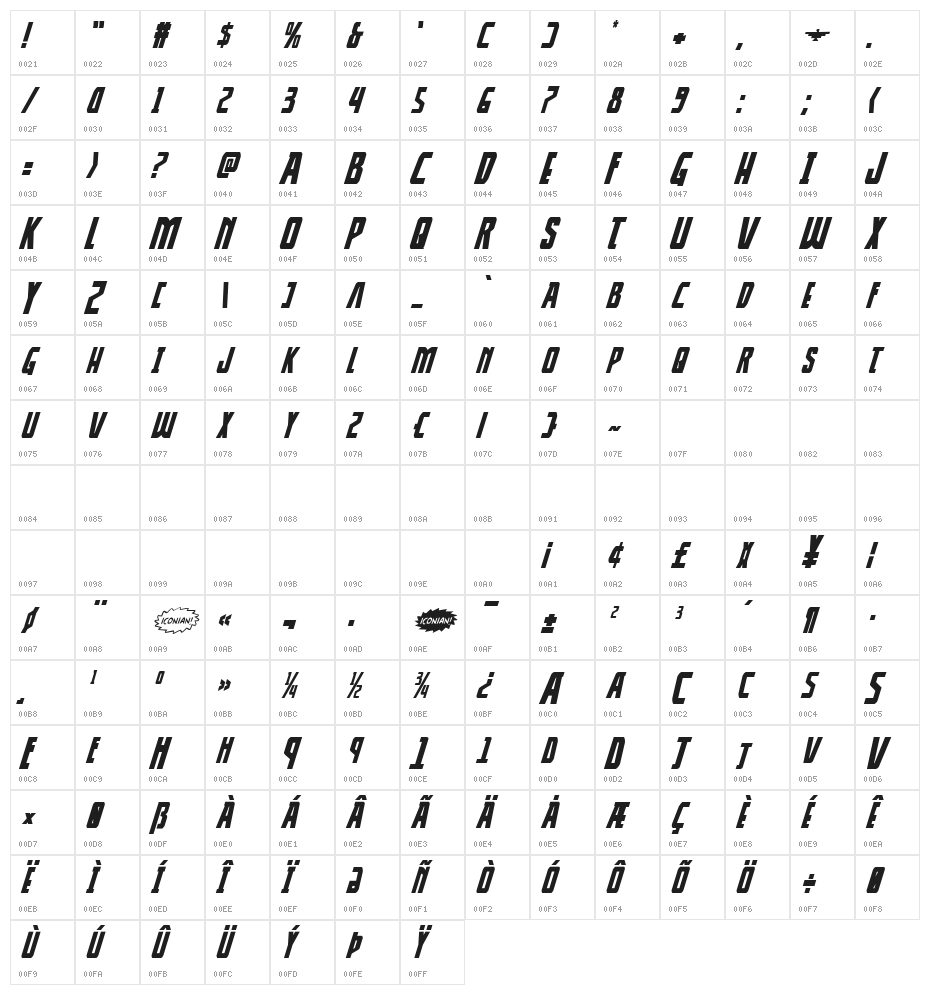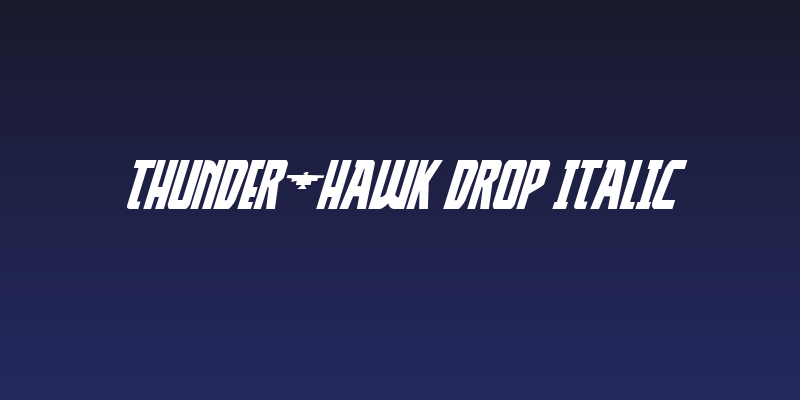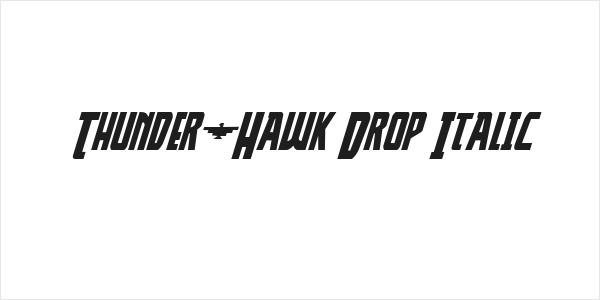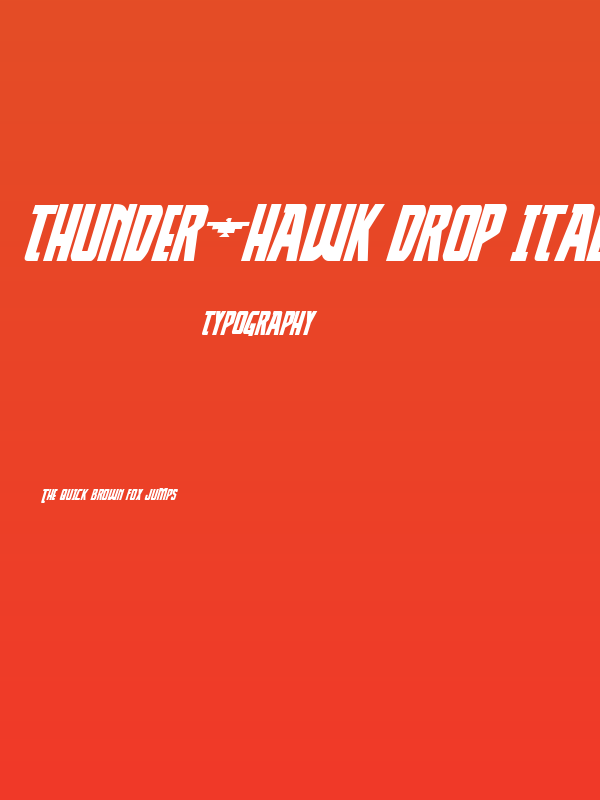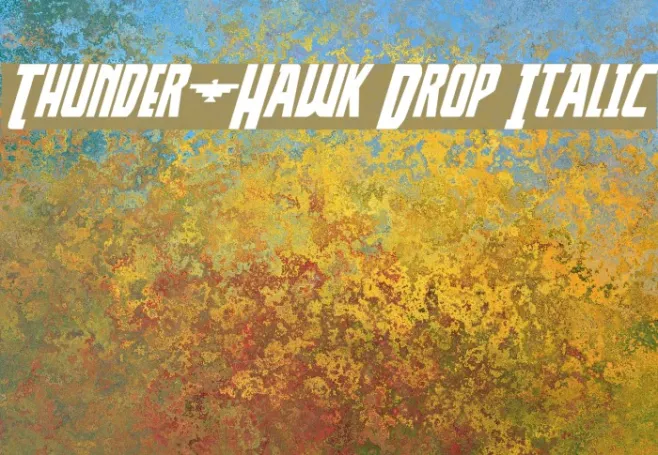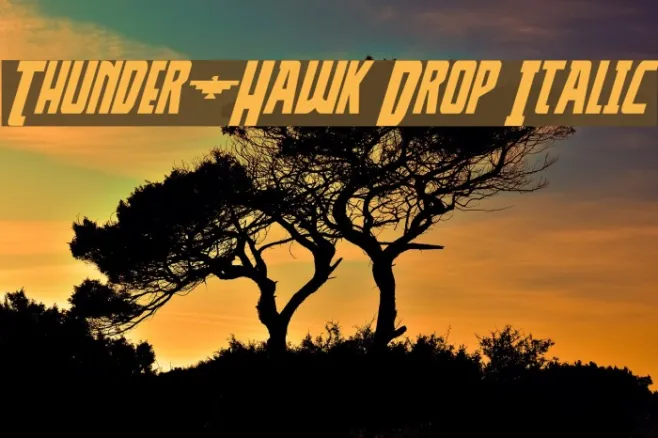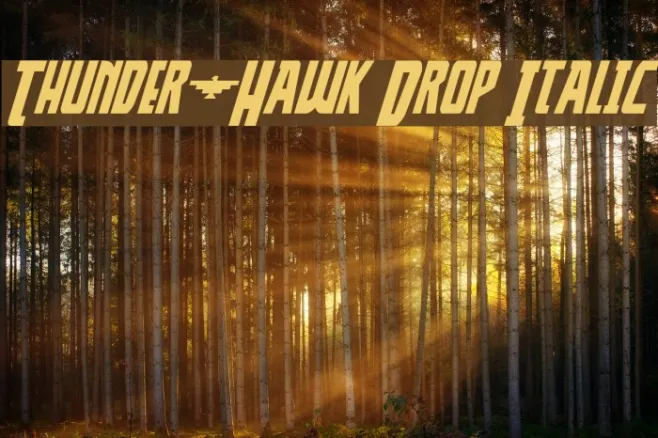
Thunder-Hawk Drop Italic Font
Thunder-Hawk Drop Italic Description
This font features a bold and dynamic style with a strong italic slant, creating a sense of motion and energy. The characters are sharply angled, with a distinct geometric influence that gives them a modern and aggressive appearance. The uppercase and lowercase letters maintain a consistent style, with uniform stroke widths that contribute to a cohesive look. The numbers and special characters follow the same design principles, ensuring versatility across different uses. This font is particularly suited for projects that require a bold statement, such as sports branding, action-themed posters, or dynamic logos.
| Proposed Projects | Ideal for sports branding, action-themed posters, dynamic logos, and headlines. |